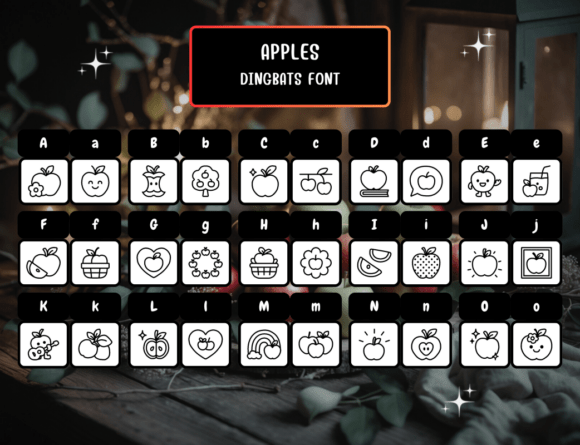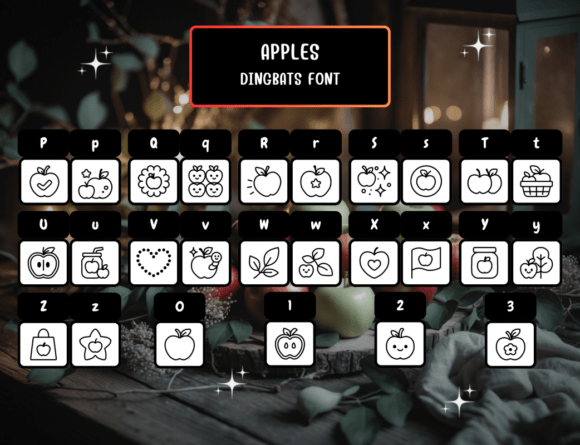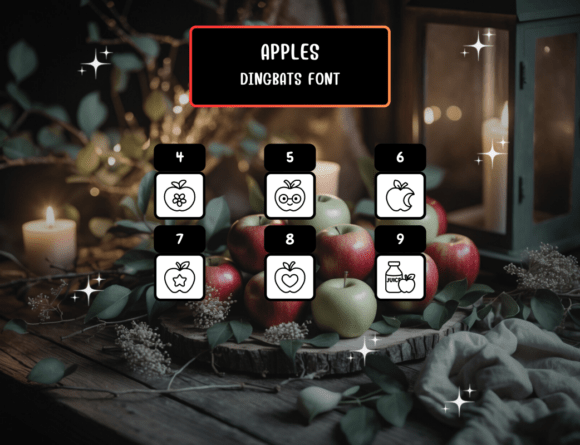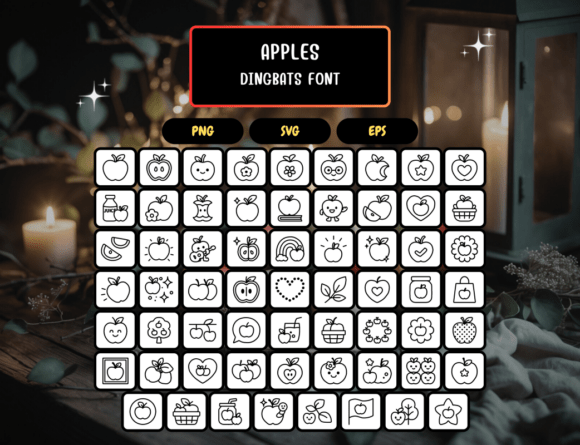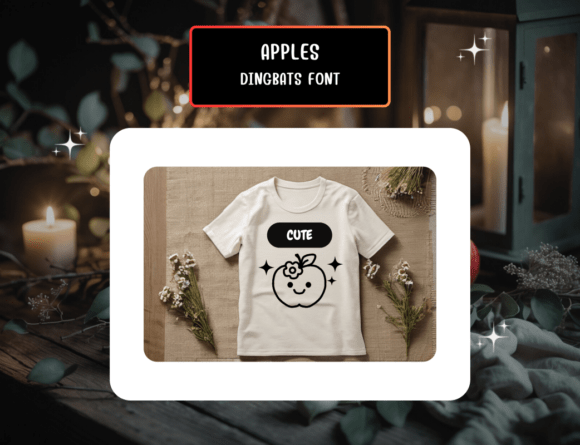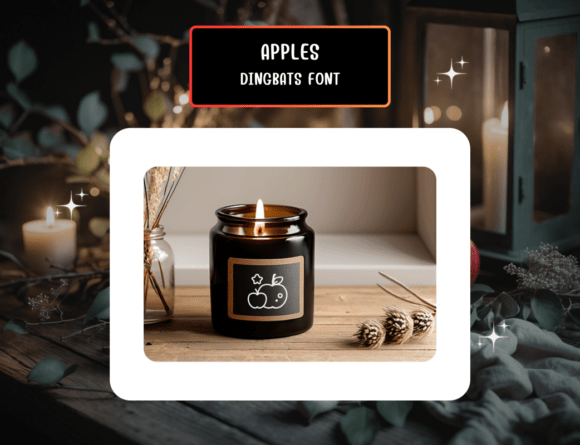
The Apple of My Eye: A Delightful Font for Creative Projects
I still remember the design project that led me to discover Apples Font. I was working on a fun packaging design for a client’s artisanal food business, and I needed a playful, hand-drawn font to match their brand personality. After scouring font websites and marketplaces, I stumbled upon Apples Font – a charming Dingbats font filled with a variety of hand-drawn Apple illustrations. It was love at first sight! 💕
• ✨ The illustrations are meticulously hand-drawn, giving the font a warm and organic feel that’s perfect for creative projects.
• ✅ Each letter key types a different doodle, making it easy to add visual interest to labels, packaging, stickers, greeting cards, and educational materials.
• 🎉 The font is incredibly versatile and can be used for a wide range of projects, from digital designs to print materials.
While Apples Font is a delightful addition to any design project, there are a few quirks to keep in mind:
• ⚠️ Since it’s a Dingbats font, some letters or characters might not be immediately recognizable or usable for body text.
• 🤔 Depending on the design software or platform, accessing the full range of glyphs or stylistic alternates might require a few extra steps.
The Story Behind Apples Font
Apples Font was designed with the intention of bringing a touch of whimsy and playfulness to creative projects. The designer, inspired by the charm of hand-drawn illustrations, set out to create a font that would make designing fun and accessible. The result is a delightful font that’s perfect for adding a personal touch to labels, packaging, stickers, greeting cards, and educational materials.
Q: What kind of projects is Apples Font best suited for?
A: Apples Font is perfect for creative projects that require a playful, hand-drawn touch, such as labels, packaging, stickers, greeting cards, and educational materials.
Q: Can I combine Apples Font with other fonts?
A: Yes, Apples Font can be combined with other fonts to create a unique and visually appealing design. Experiment with different font combinations to find the perfect pairing for your project.